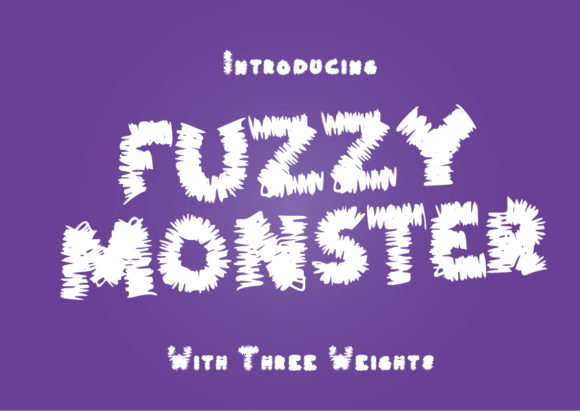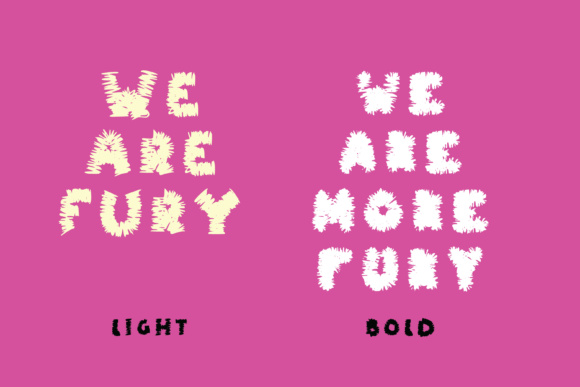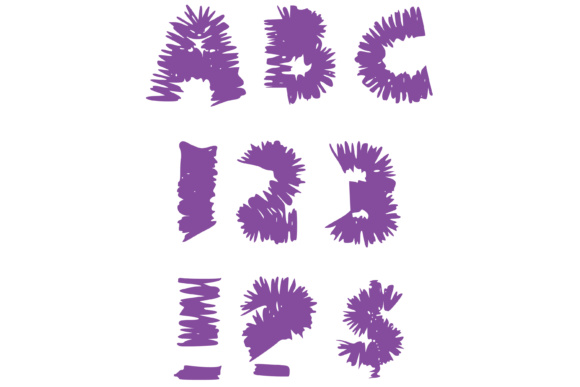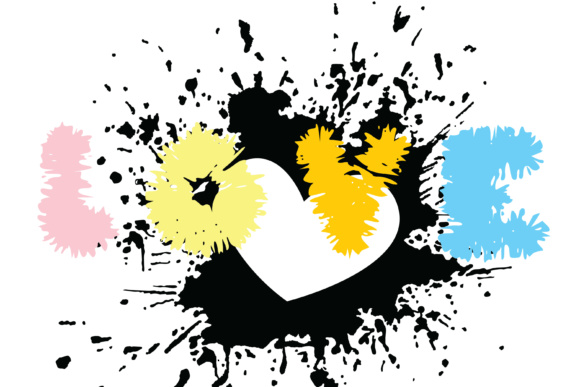
Fuzzy Monster Font
About Fuzzy Monster Font
We love anything fury and we also love monsters! This fun font face has two weights, one fury and the other very fury. They don’t bite and are quite friendly just use with caution with all your designs, arts and crafts.